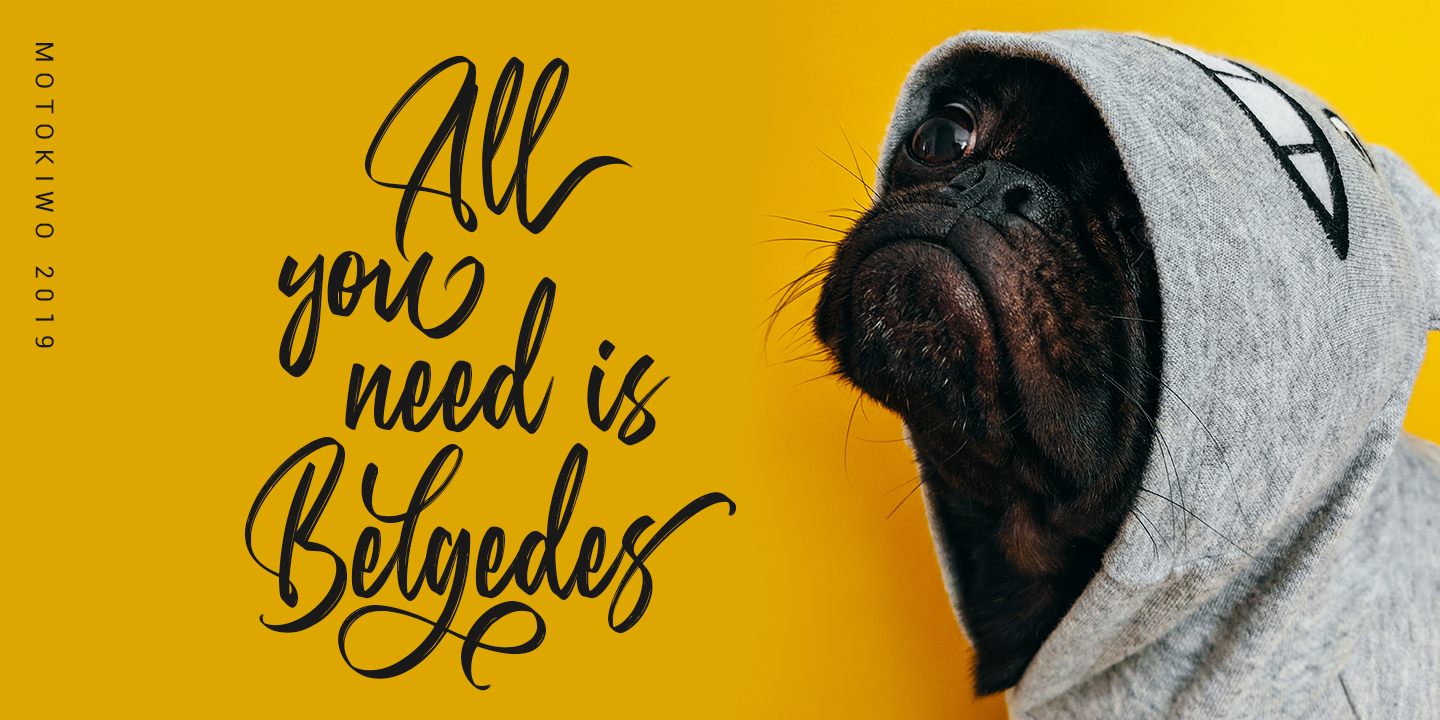
The Belgedes Font excels in various design applications including official document branding, professional certificate designs, legal documentation materials, government agency communications, formal business correspondence, academic institution signage, administrative office identities, official record keeping systems, corporate documentation packaging, and distinguished institutional projects that demand document authority and official sophistication.
What makes the Belgedes Font exciting is its authoritative embodiment of official documentation and formal institutional credibility through letterforms that capture the essence of legal authenticity and the professional reliability of government and corporate documentation systems. This typeface demonstrates exceptional formality through carefully crafted characters that suggest the precise requirements of official documents, the institutional authority of government communications, and the professional standards that define authentic legal and administrative documentation. The font's official personality makes it perfect for government agencies and legal institutions seeking to communicate institutional authority, document authenticity, and the kind of formal credibility that ensures proper legal and administrative compliance through typography that literally establishes official legitimacy.
The Belgedes Font family typically includes authoritative weight variations that enhance the official aesthetic, featuring formal proportions and extended character sets optimized for legal communications and administrative applications. These family options often include document-inspired alternates, official symbols, and institutional decorative elements that provide designers with comprehensive tools for creating authentically official typography that celebrates administrative excellence while maintaining contemporary design appeal and legal credibility.
Legal professionals and government organizations consistently choose Belgedes Font Free Download for projects requiring typography that communicates official authority and document authenticity. This typeface delivers exceptional performance in government marketing, legal branding, and administrative communications where establishing institutional credibility and demonstrating official competence is essential for public trust. The font's document character makes it particularly effective for certificate and legal applications. Download Belgedes Font Free Download today to access this authoritative typeface that transforms official communications with its document elegance and institutional sophistication, creating compelling administrative experiences that honor the highest standards of official documentation while maintaining the formal authority that defines truly legitimate government and legal institutional communication.